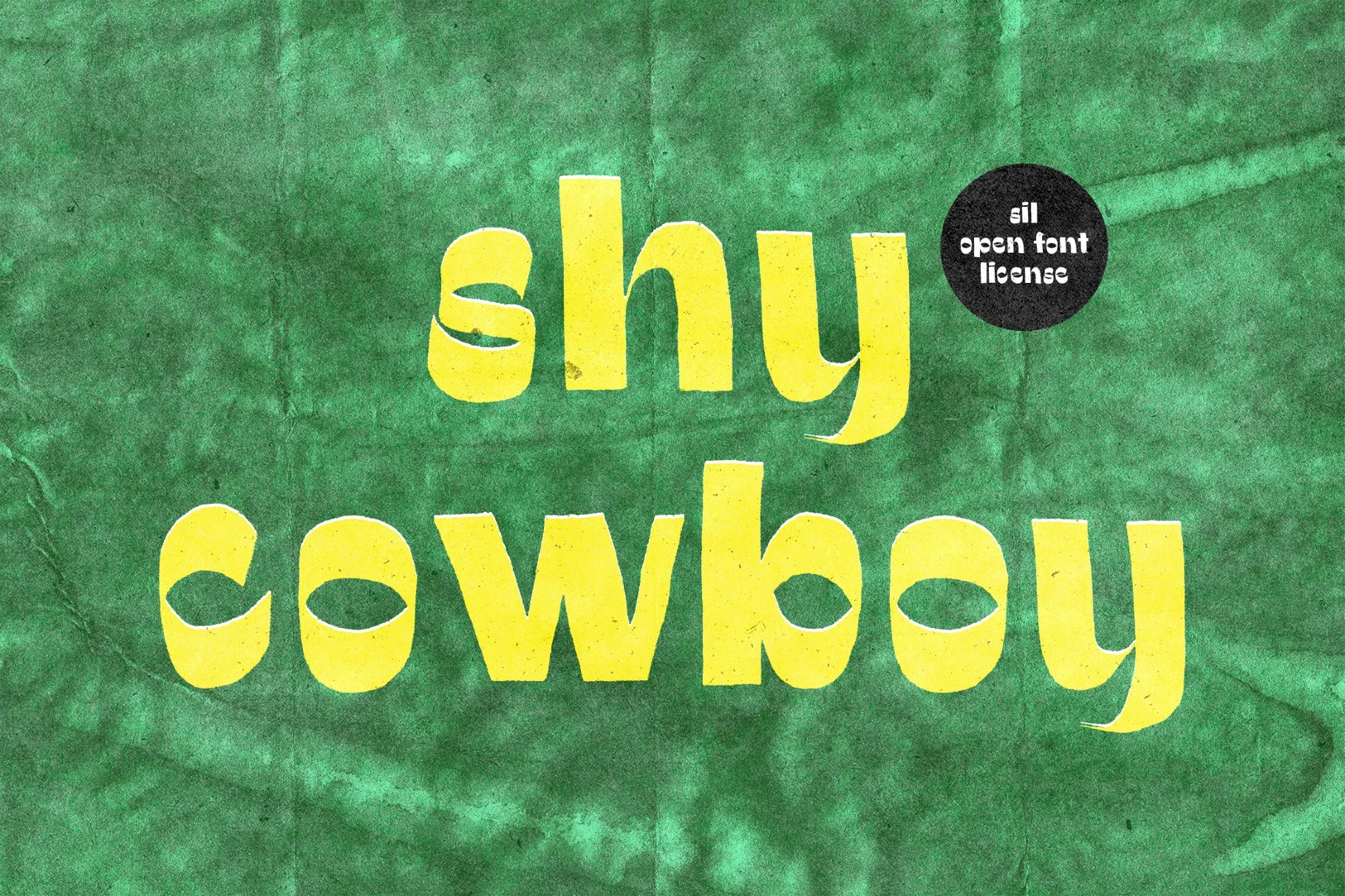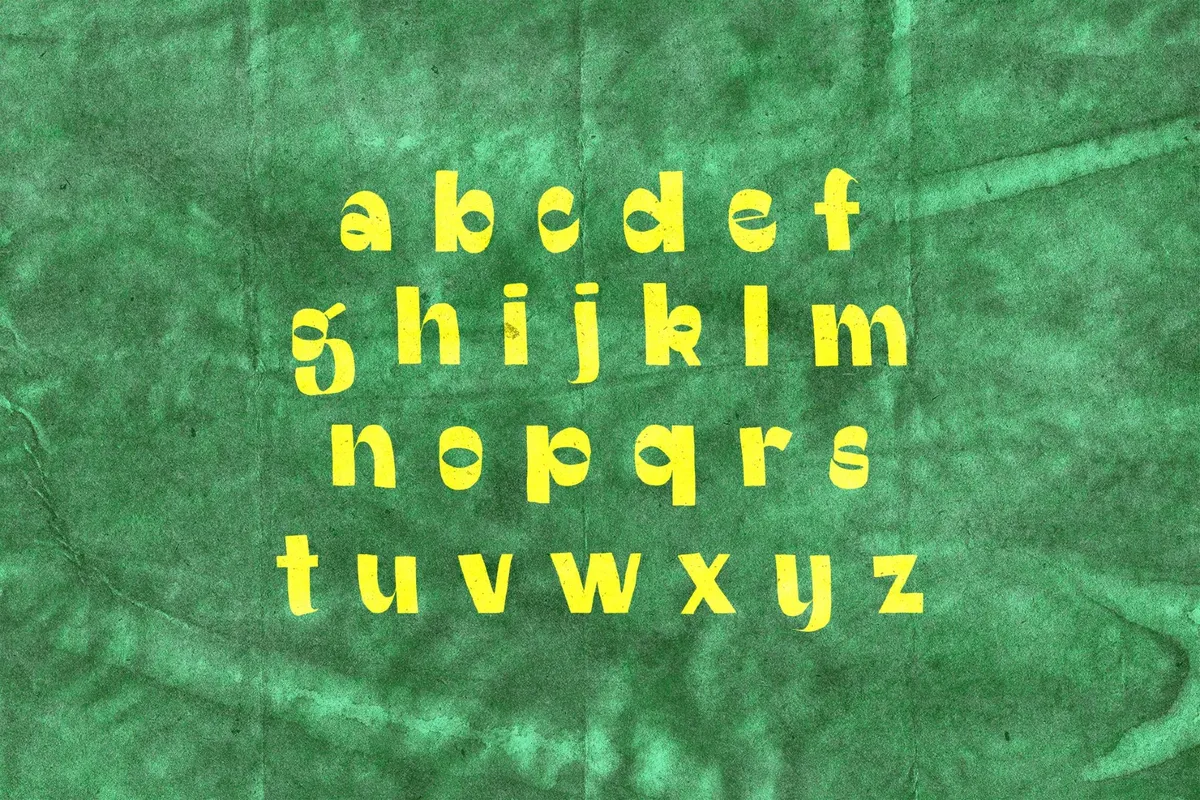
Shy Cowboy Font
shy cowboy
Shy Cowboy is a reverse-contrast lowercase typeface with the cheeky swing of comic-book lettering, old rodeo posters, and children’s paperbacks that borrowed from Western Americana without losing their cartoon wit. This type is great for comic covers, game graphics, kids’ branding, poster headlines, sticker designs, packaging and social visuals.